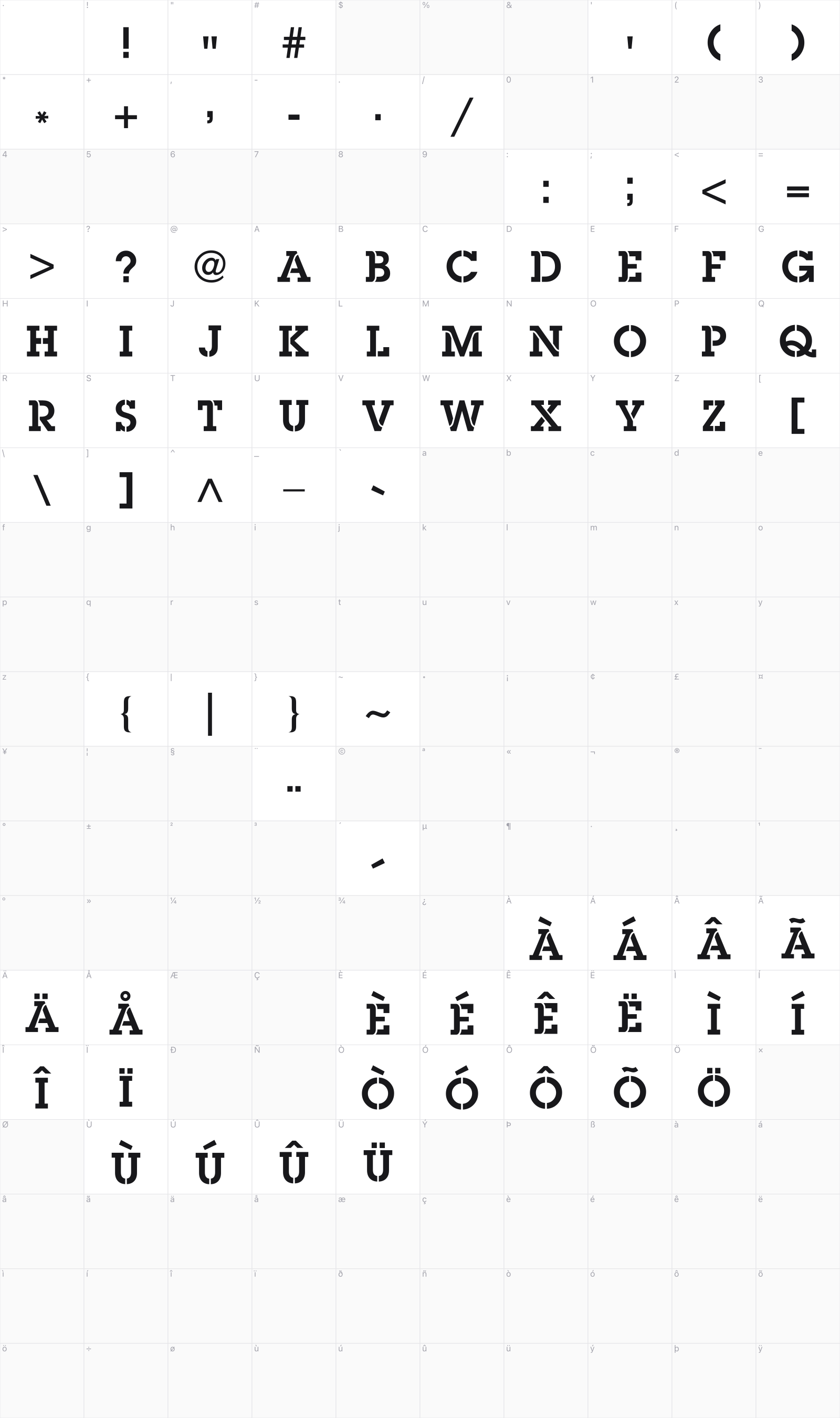
Pack'In
Pack'In is a heavy, uppercase stencil face from TierSchule with thick letterforms and the kind of no-nonsense presence you'd find on military crates and industrial signage. The bold cuts through each character are clean and deliberate, giving it a rugged, utilitarian feel that holds up well on posters, packaging, and headlines where blunt force is the whole point.